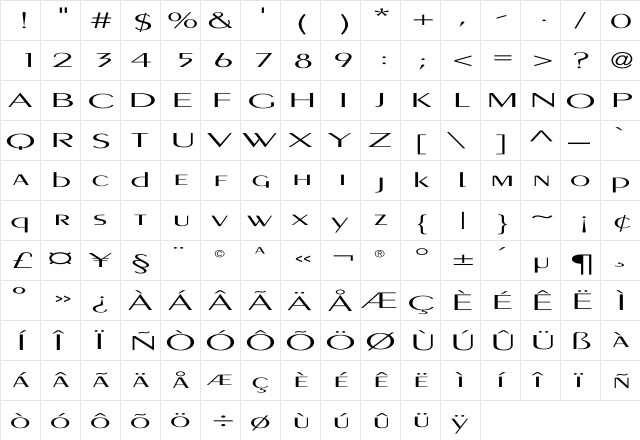
PigNoseTyp Wd Regular
PigNoseTyp Wd takes a measured approach to typography — its balanced proportions and neutral character make it a reliable workhorse for both digital and print work.